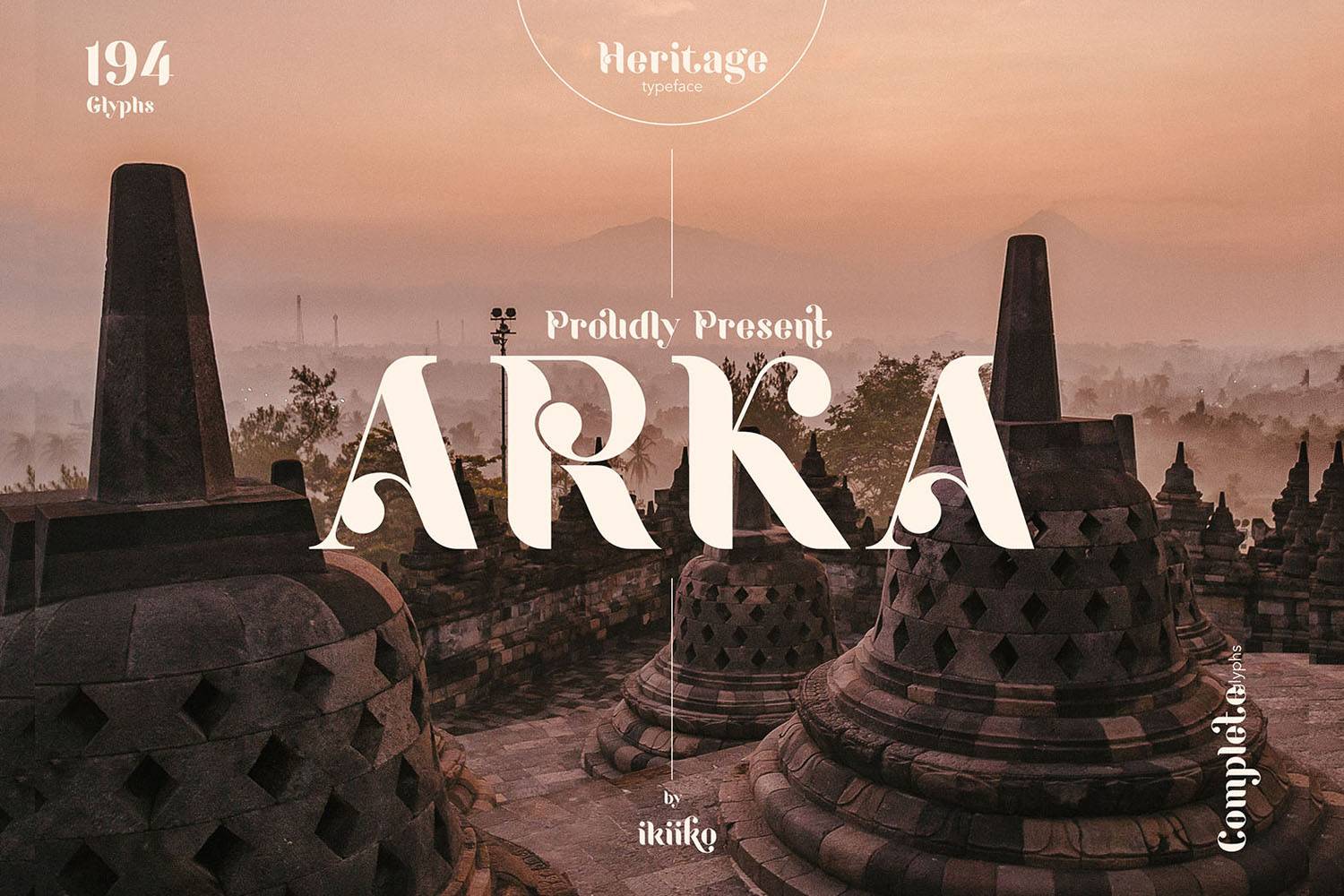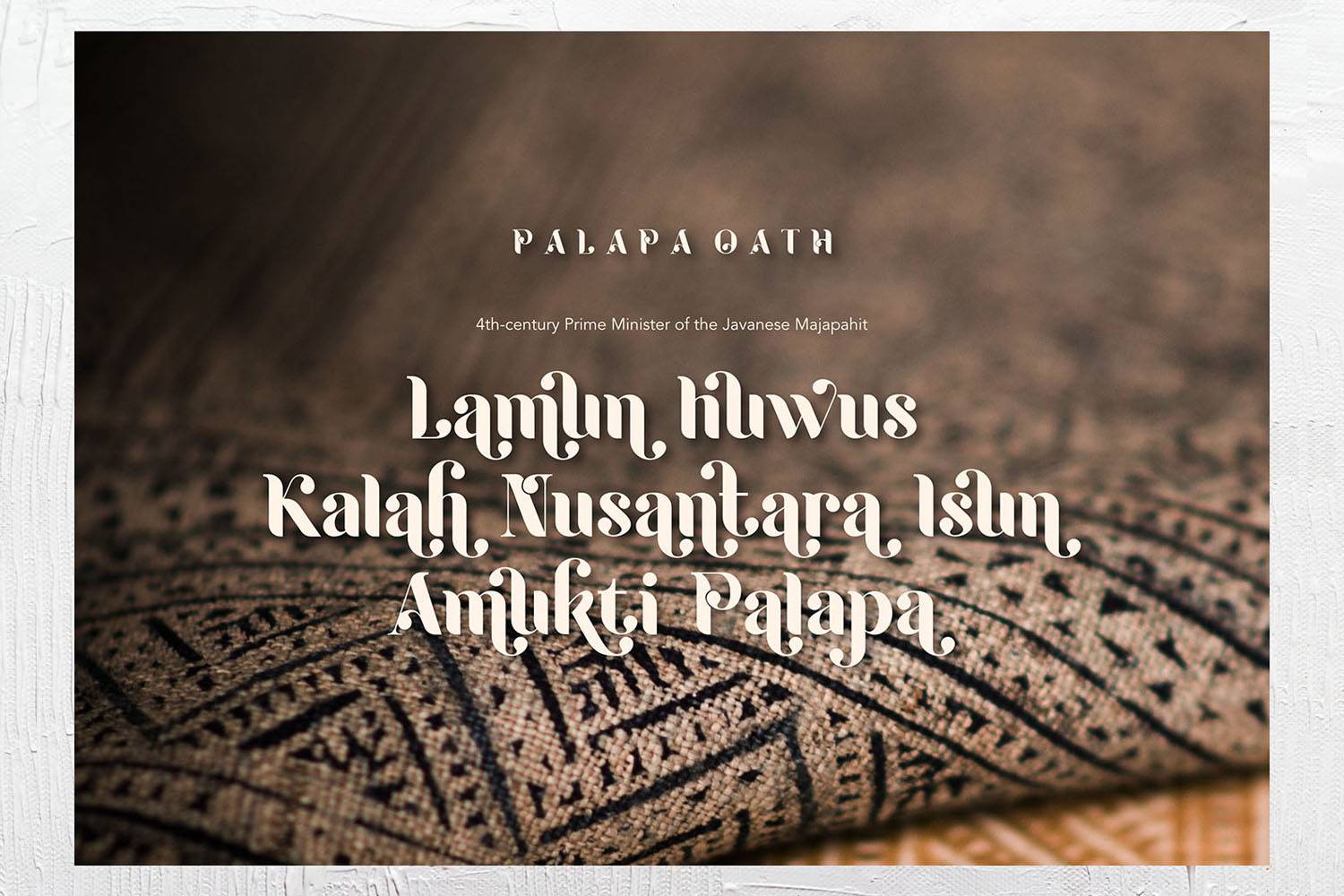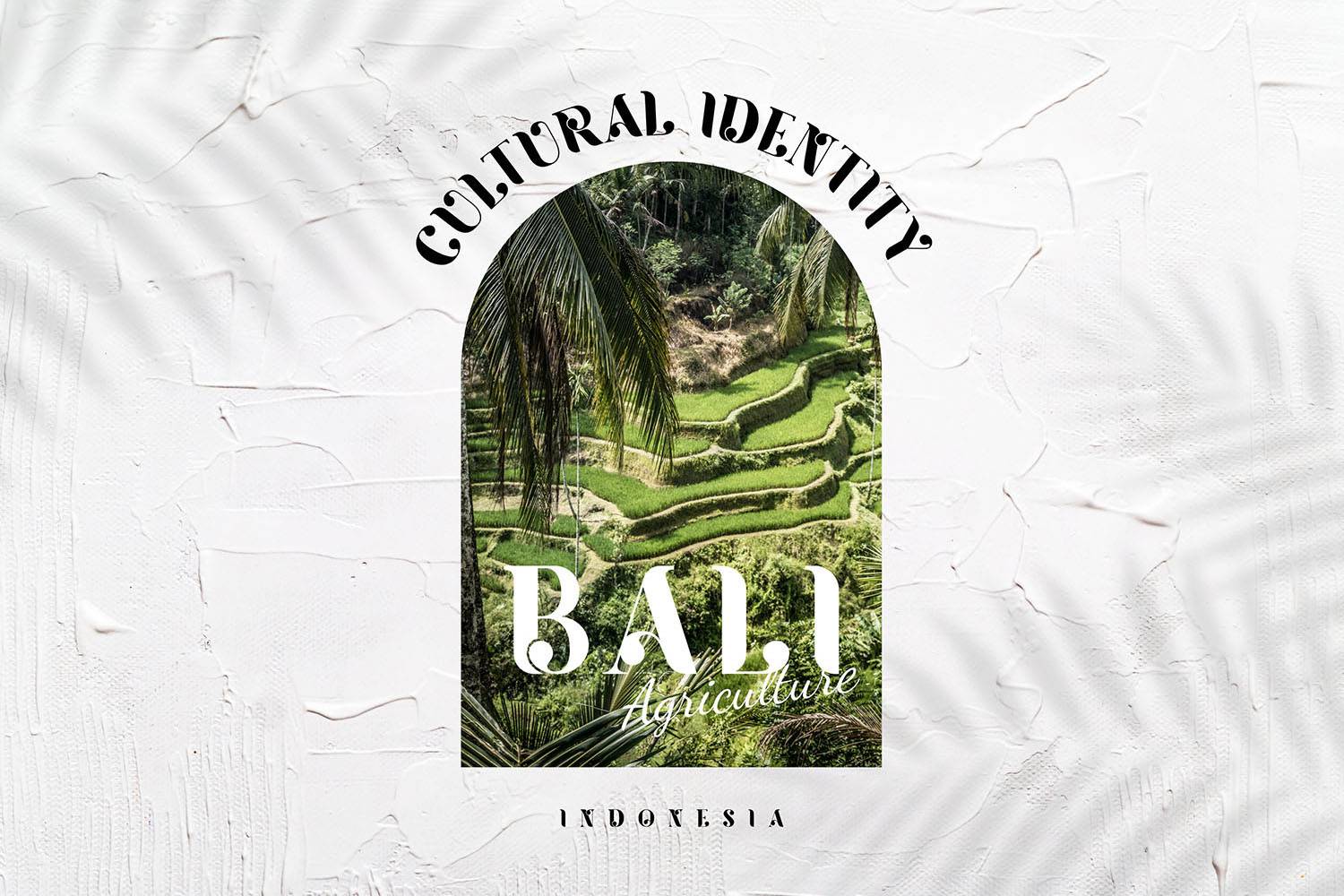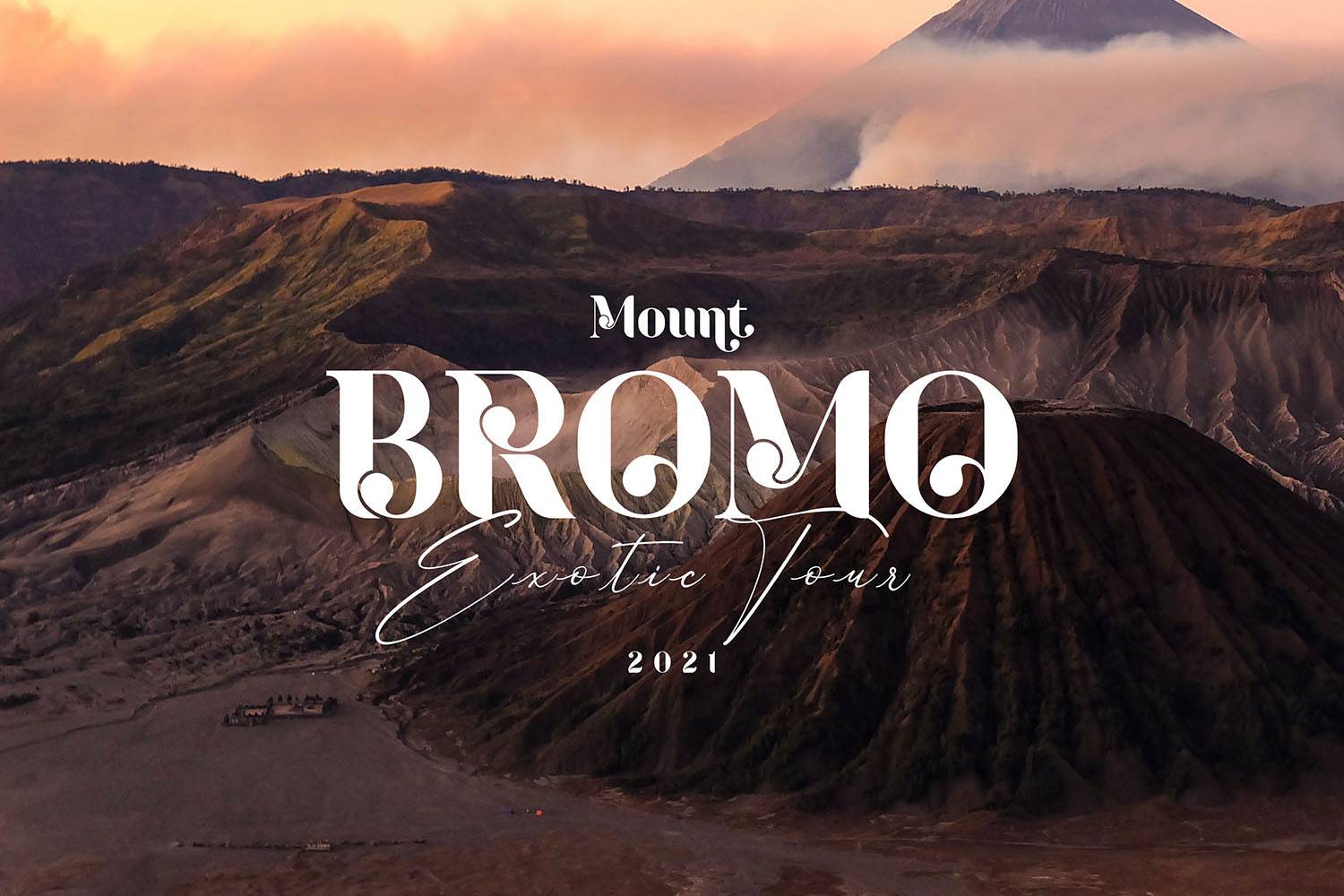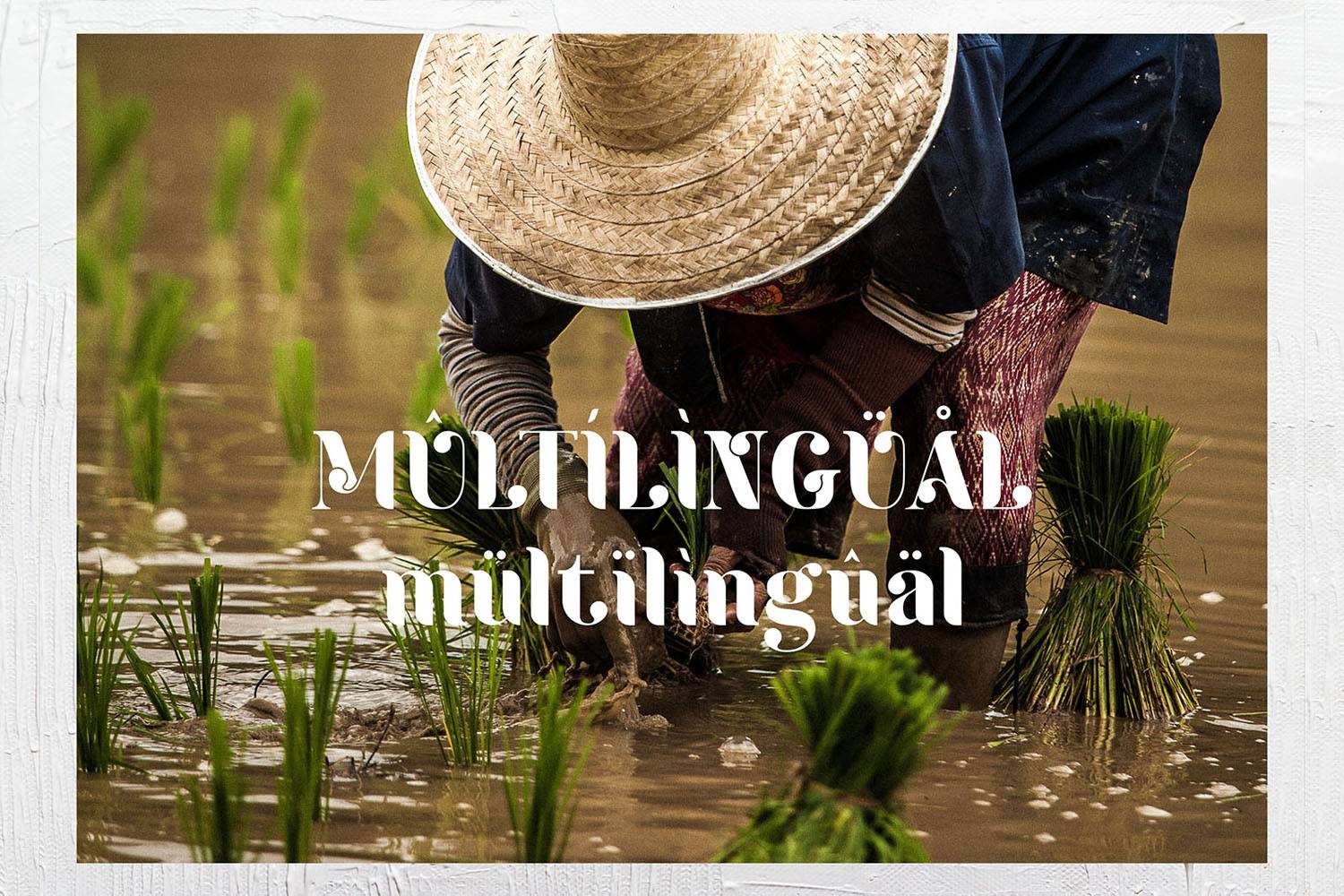
Arka is a bold serif typeface with strong contrast between thick and thin strokes, featuring unique, decorative swirls that add a playful yet elegant flair. Its distinctive letterforms and high contrast make it ideal for eye-catching headlines, logos, and branding projects that seek a vintage-inspired, artistic look with modern appeal. This font works best in display settings where its elaborate details can shine without overwhelming the reader.
Arka Font
About Arka Font